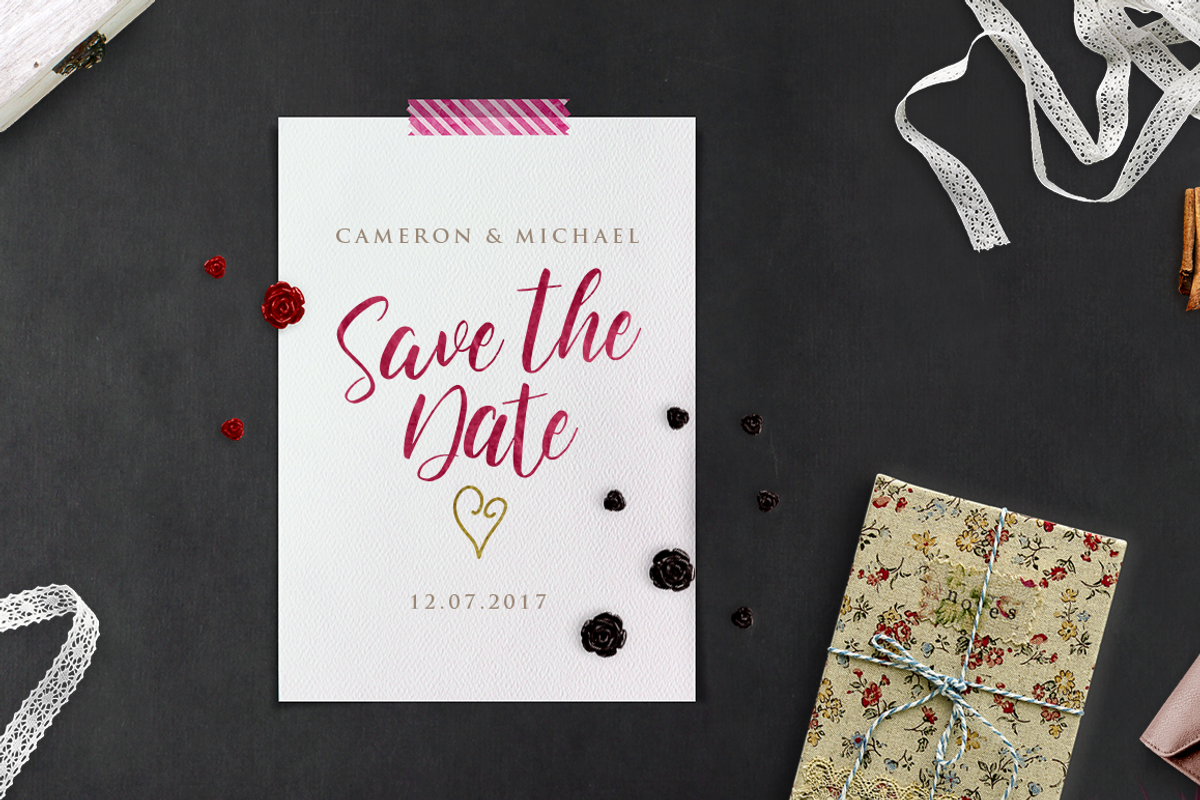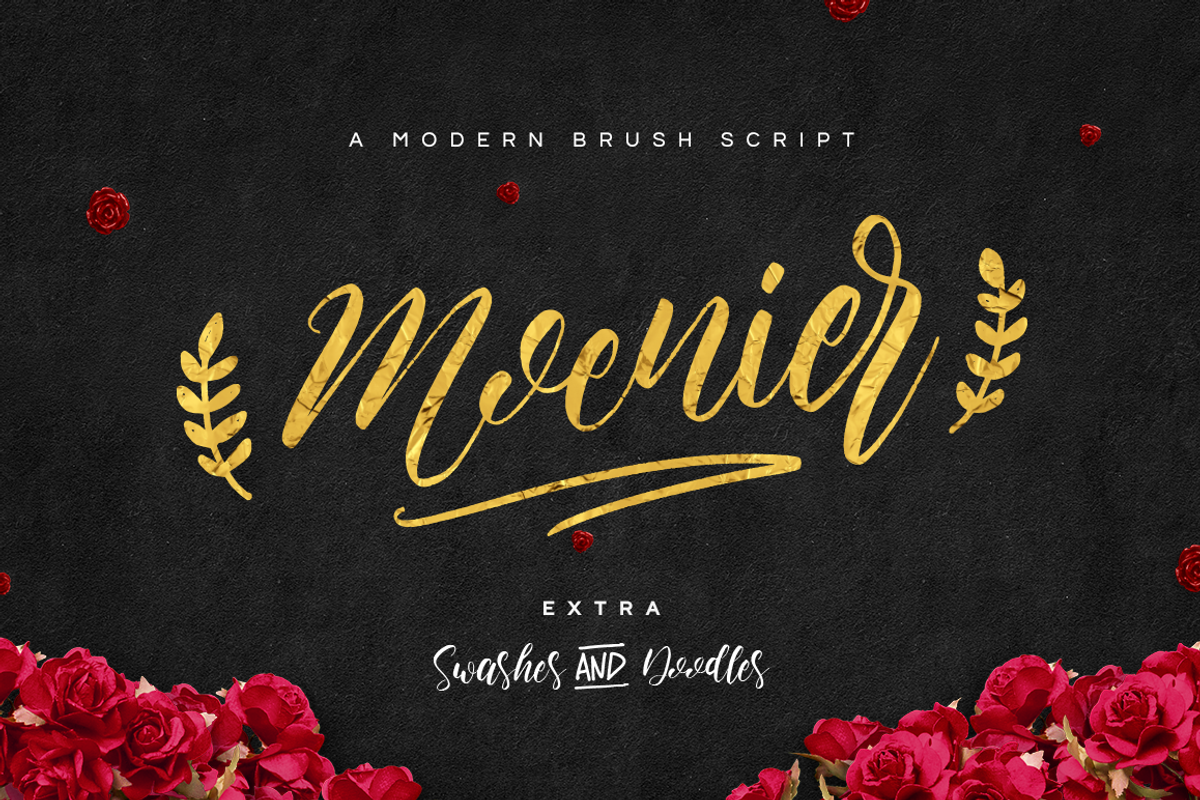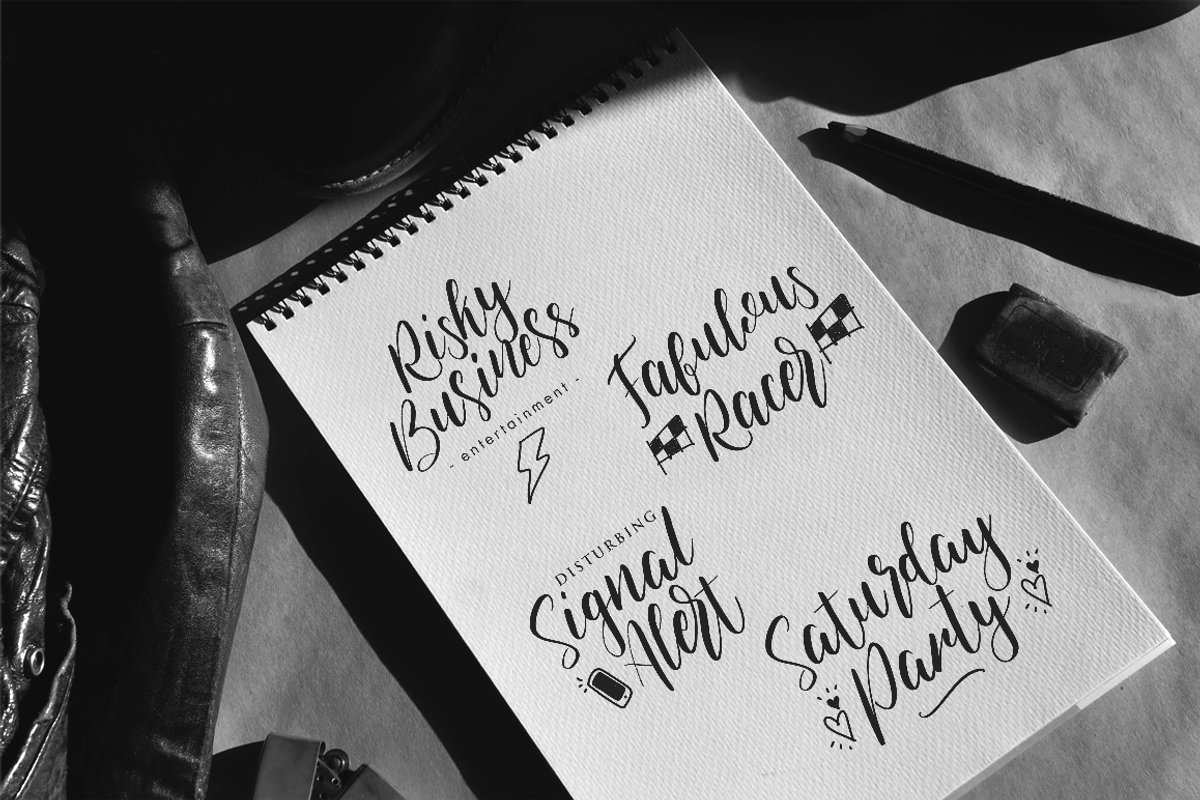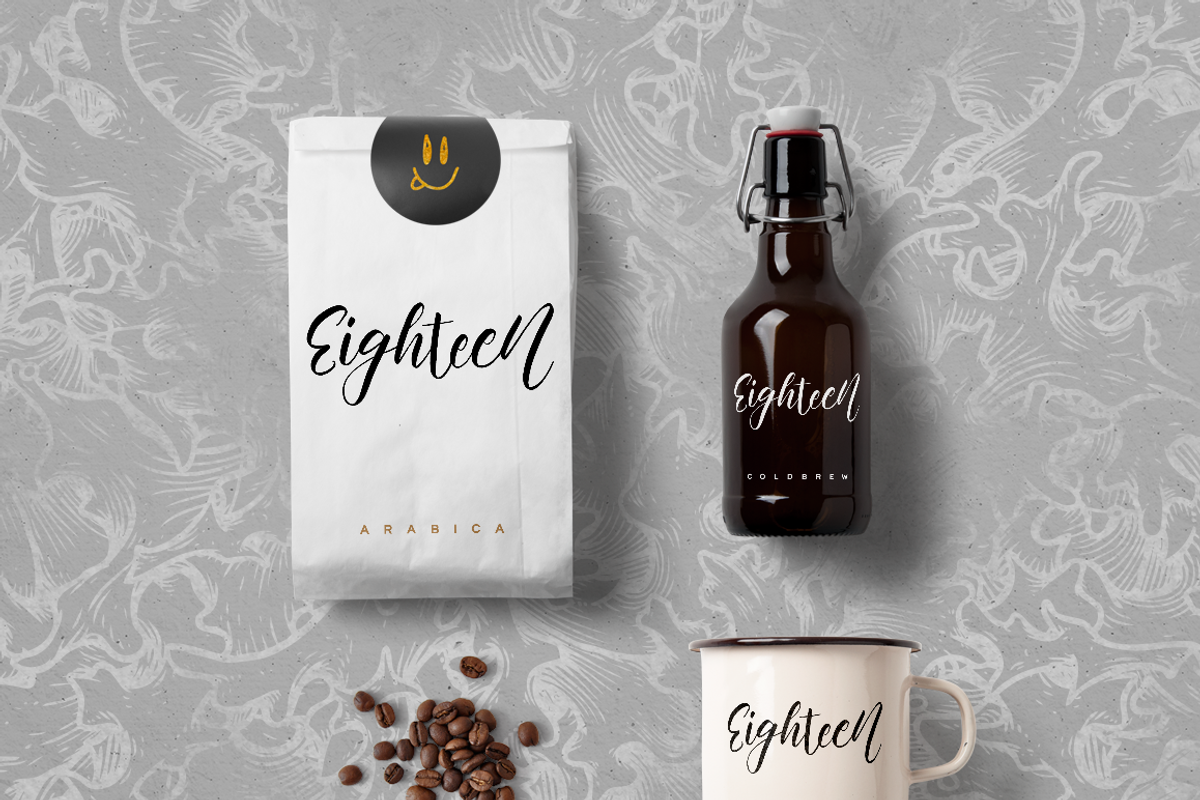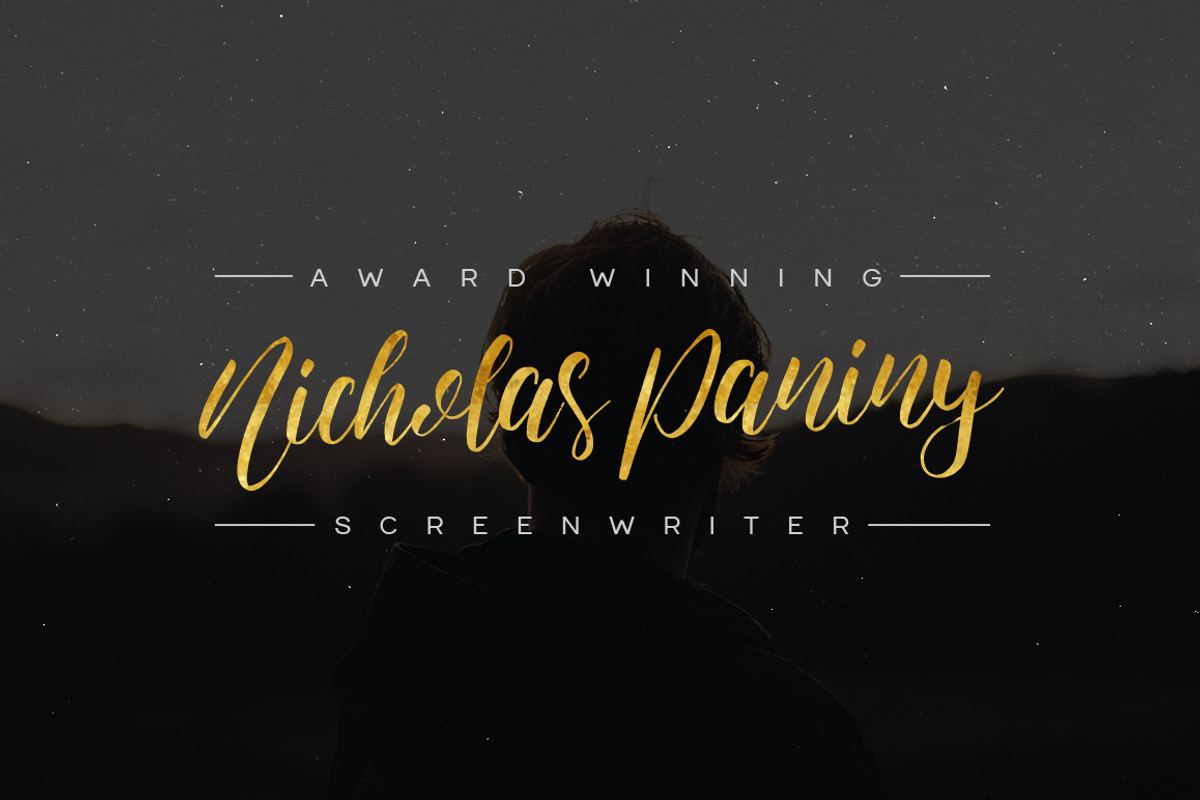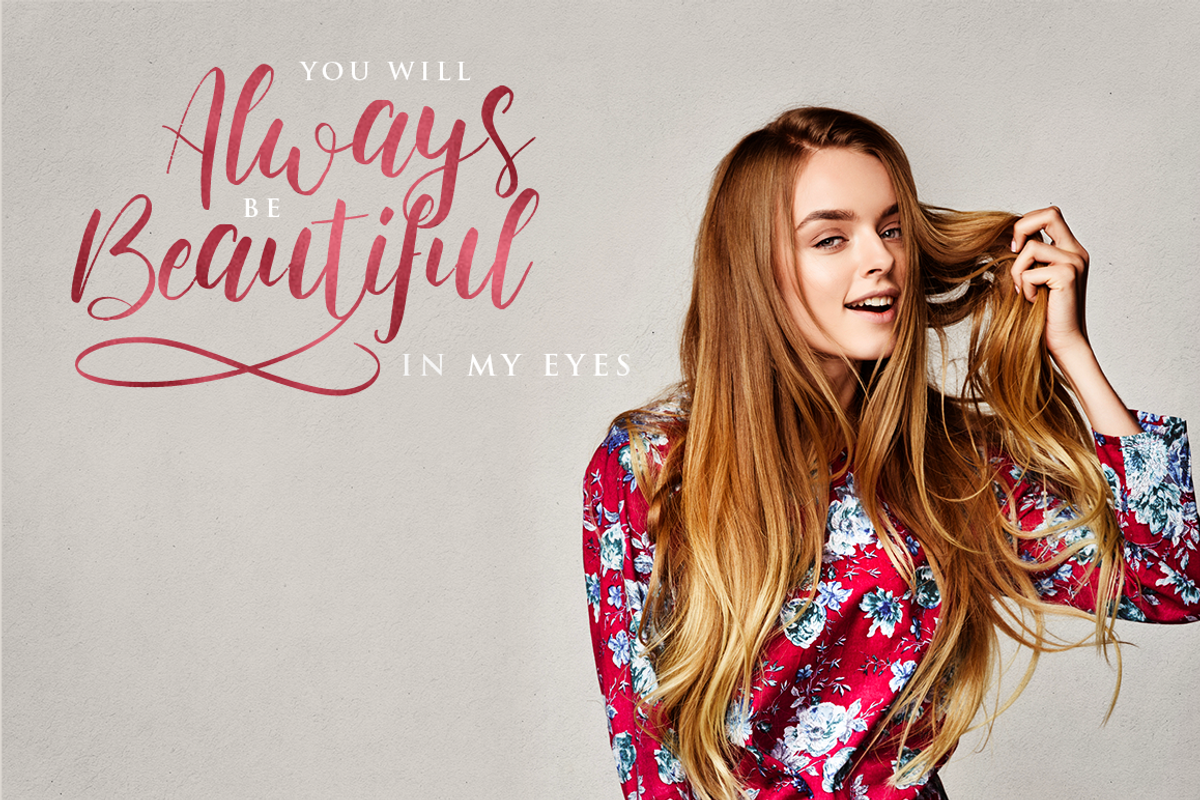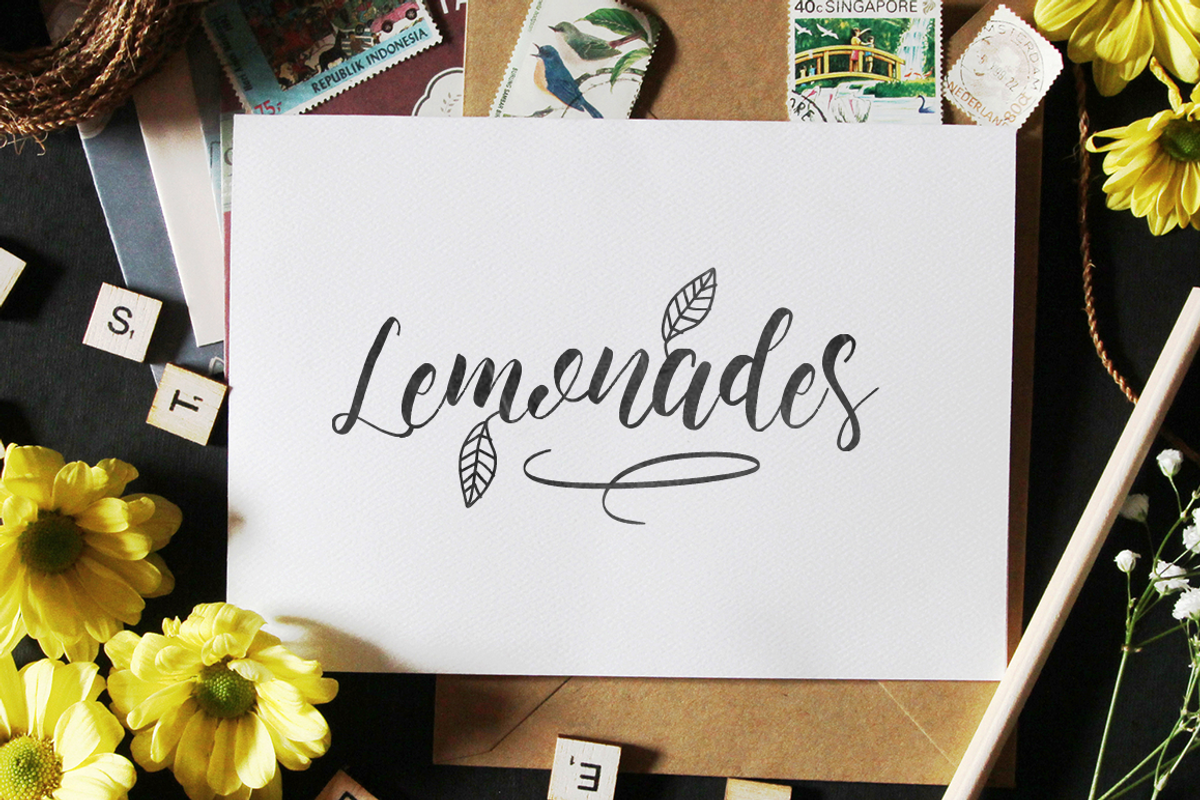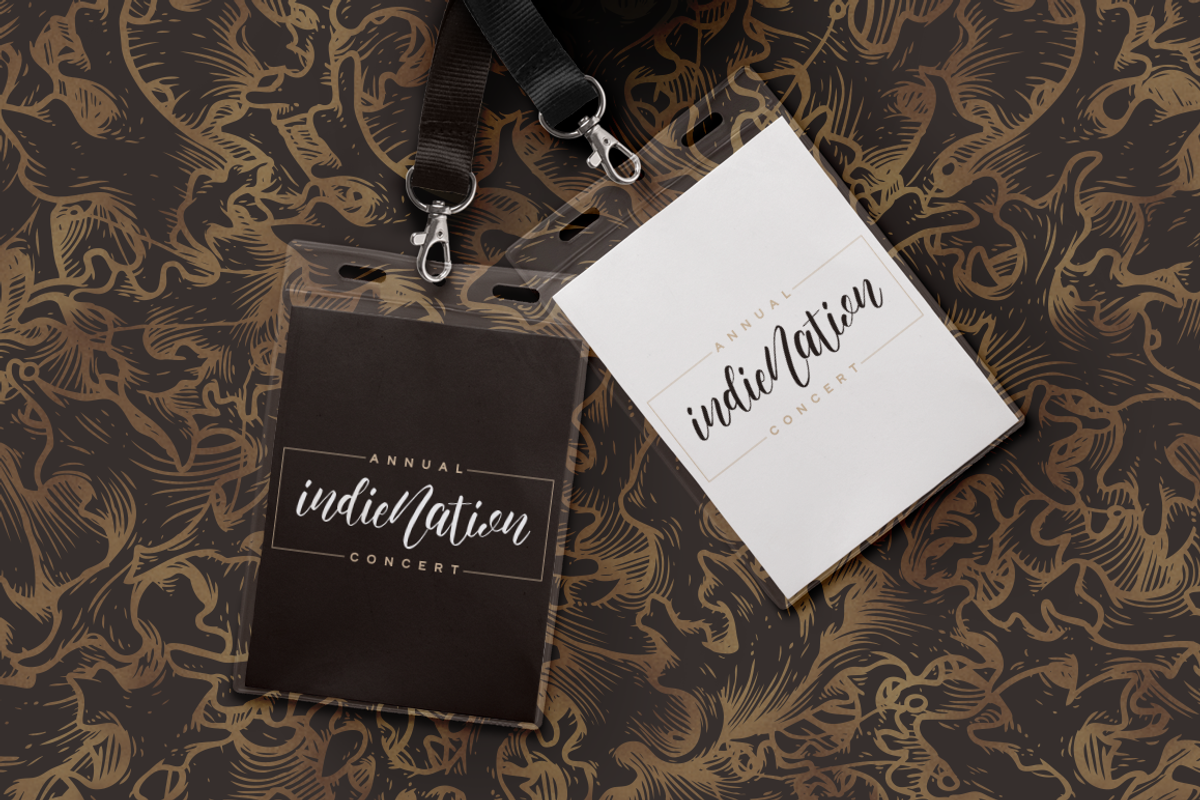
Moenier Font
Moenier Font by Hindia Studio is a font selected for branding, posters, packaging, typography.
- Uppercase & Lowercase
- Alternate lowercase
- 10 swashes (num. 0-9)
- 26 doodles (a-z)
Why Moenier Font is worth a look
Moenier Font by Hindia Studio fits naturally into Branding, posters, packaging, typography.